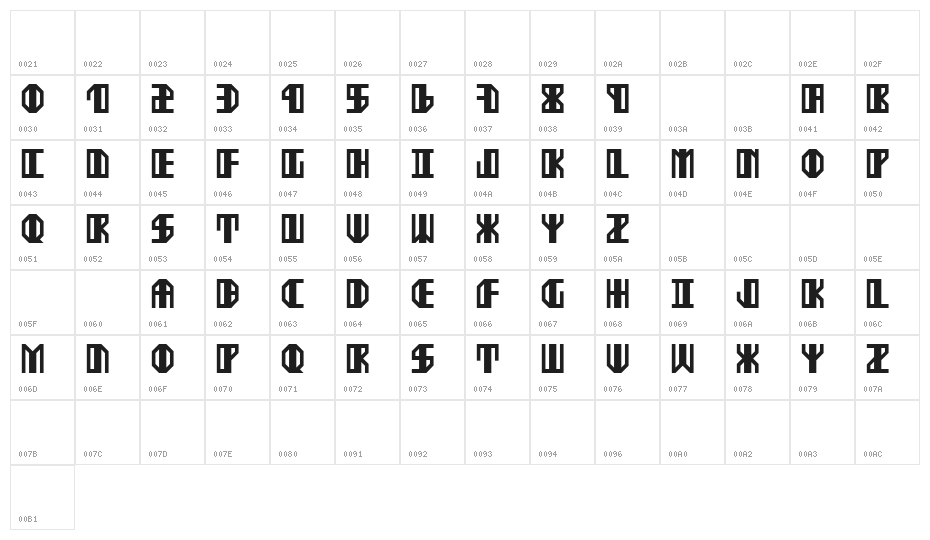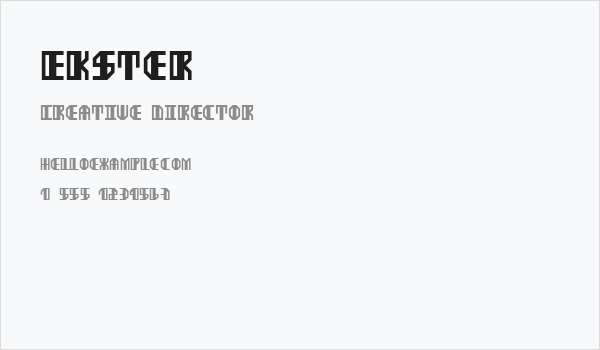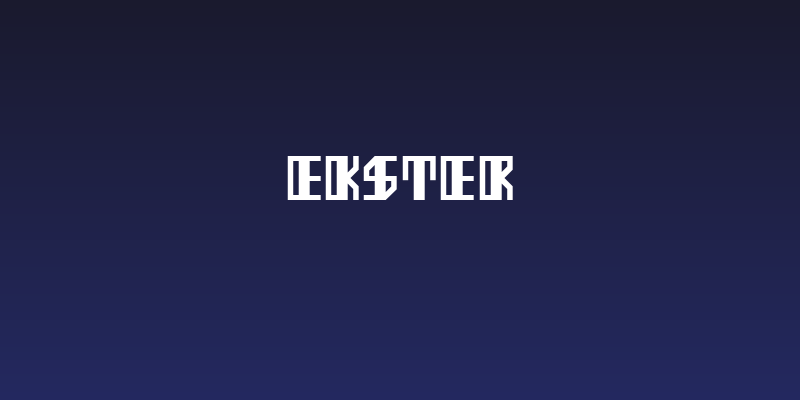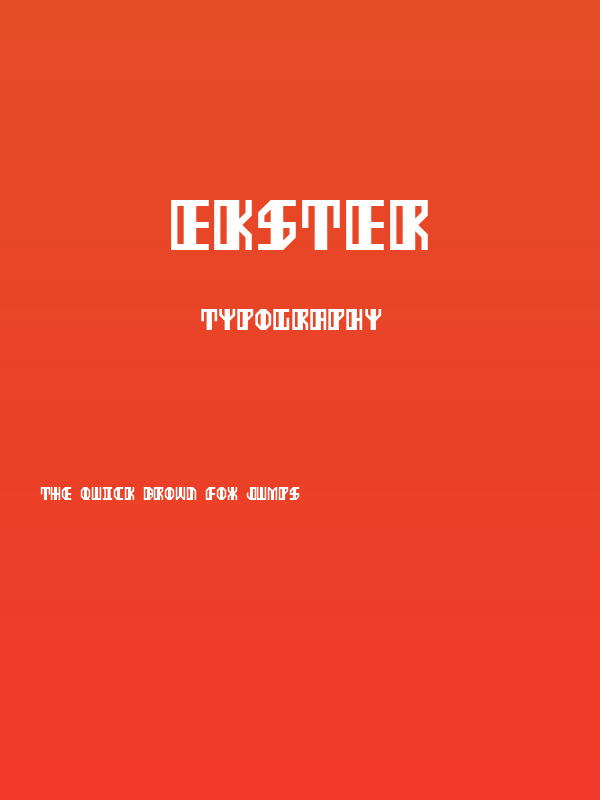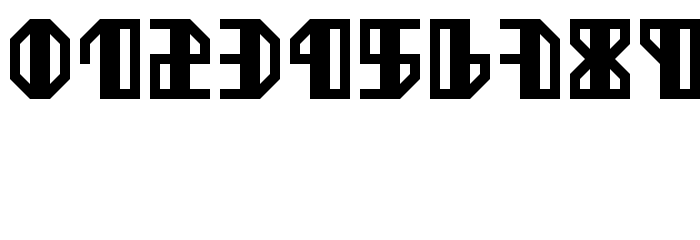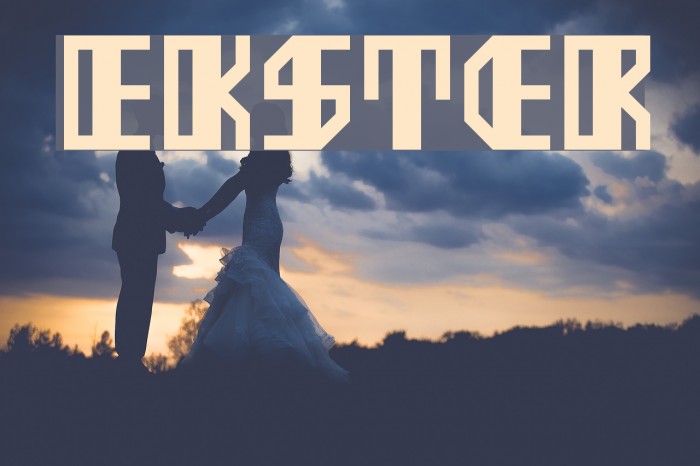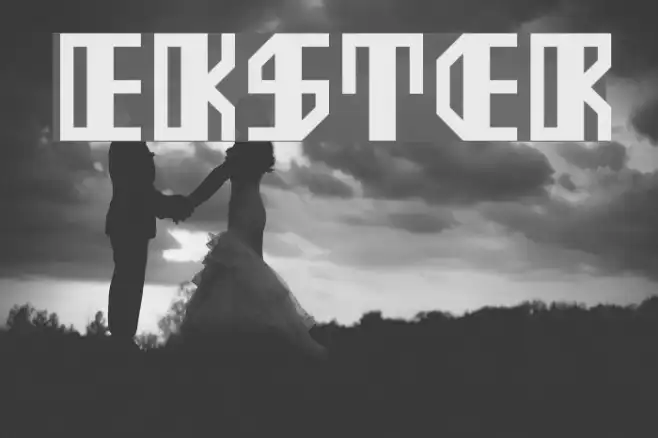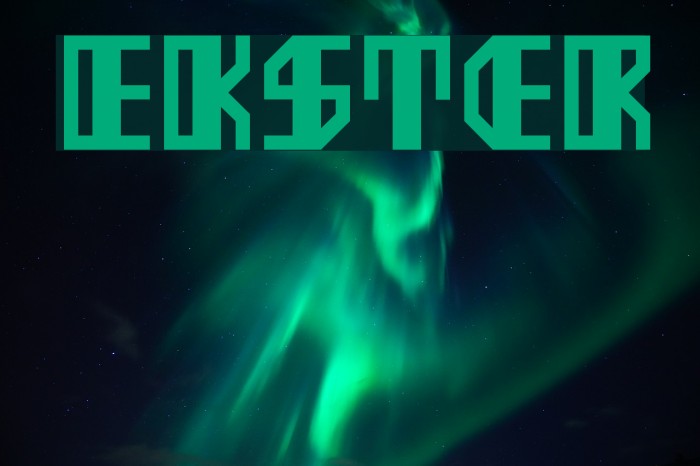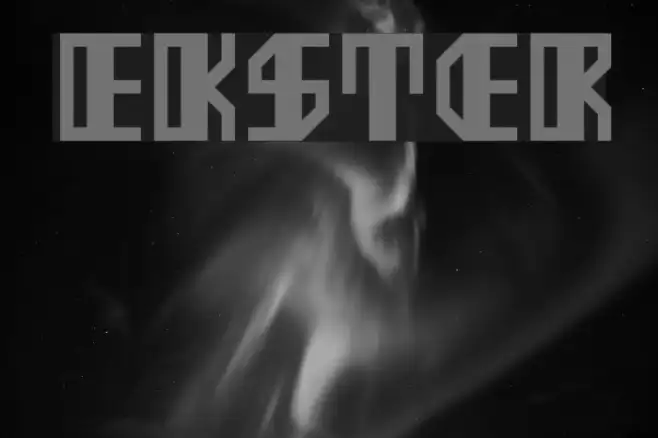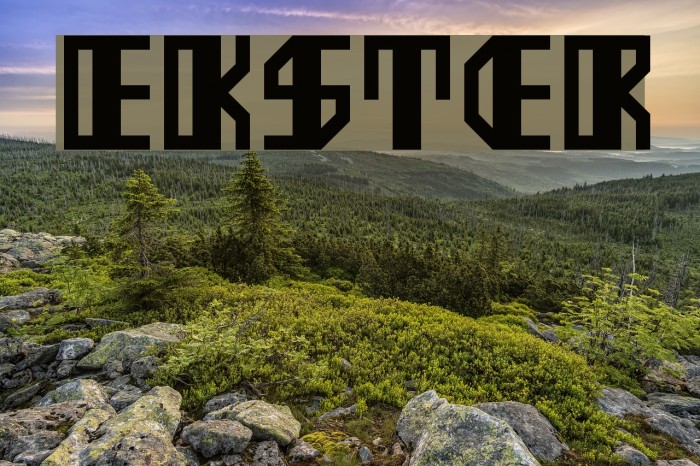
Ekster Font
Ekster Description
This font features a bold, geometric design with sharp angles and a strong presence. The characters are constructed with a consistent thickness, giving it a uniform and cohesive look. The uppercase letters exhibit a unique style with angular cuts and a futuristic feel, while the lowercase letters maintain the same geometric integrity. The numbers and special characters follow the same design principles, ensuring a harmonious appearance across all glyphs. This font is ideal for projects that require a modern and edgy aesthetic.
| Proposed Projects | Ideal for branding, posters, video game titles, and any project needing a modern, edgy look. |